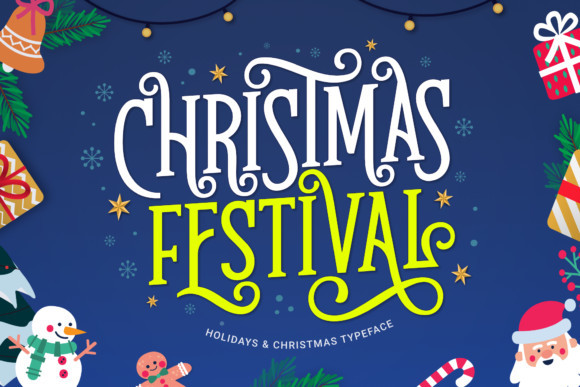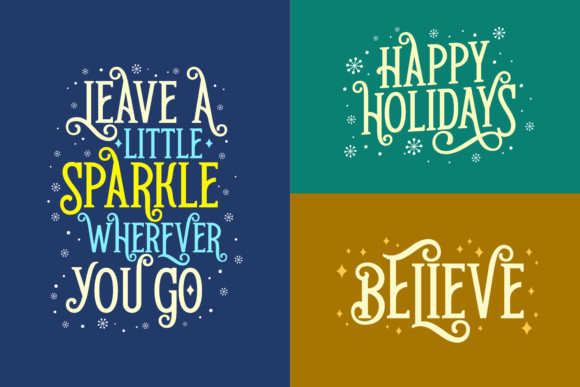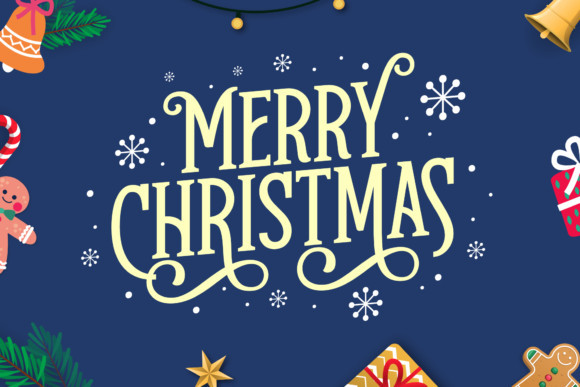
Christmas Festival Font
Christmas Festival FontChristmas Festival is a festive and incredibly classy display font. It is ideal for any of your winter break creations so add it to your designs and bring them to life! Christmas Festival is PUA encoded which means you can access all of the glyphs and swashes with ease!